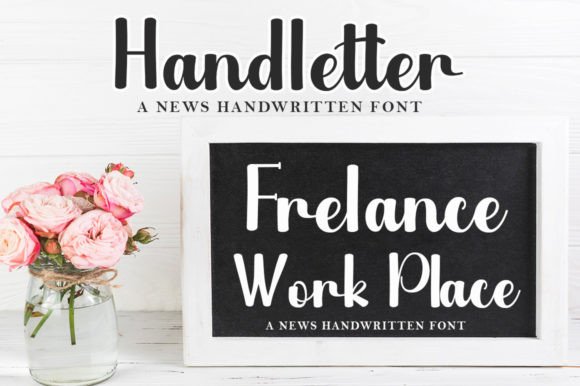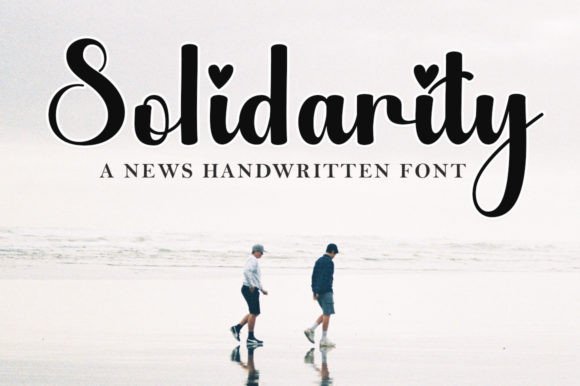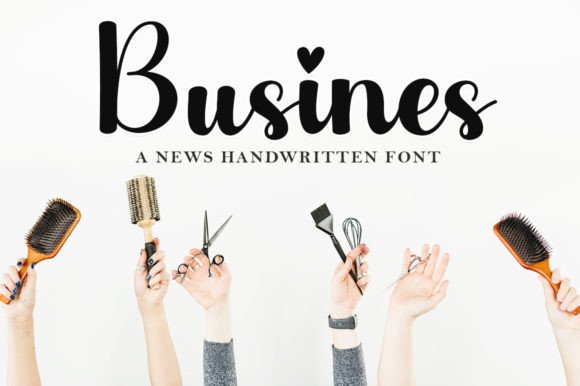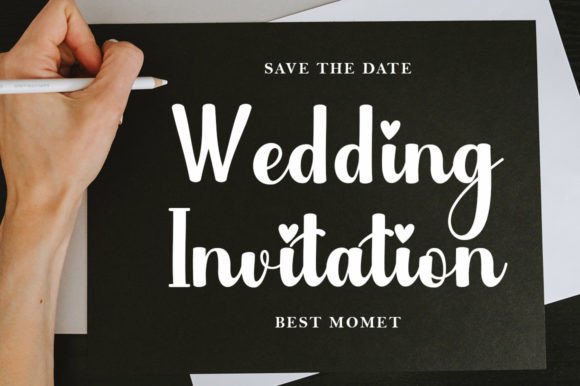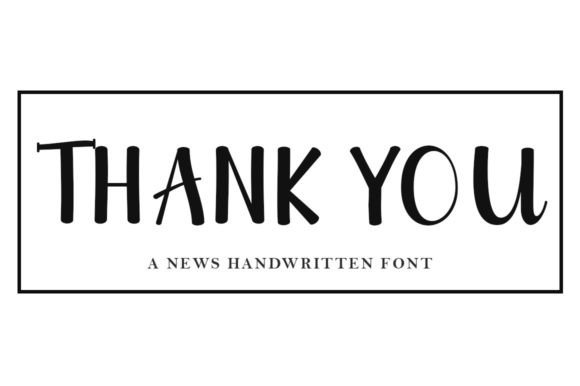
Elevate Your Designs with Hand Letter Font: A Timeless Classic with a Modern Twist
In the world of typography, few styles evoke the same level of sophistication and elegance as hand lettering. Among the numerous fonts that attempt to capture this essence, Hand Letter Font stands out as a shining example of modern calligraphy with a classic touch. This trendy handwritten font is designed to bring a contemporary atmosphere and impeccable form to your design projects, making it an ideal choice for designers and crafters looking to add a touch of refinement to their work.
The Inspiration Behind Hand Letter Font
Hand Letter Font draws inspiration from timeless classic calligraphy, infusing it with a modern sensibility that resonates with today’s design trends. The result is a font that exudes elegance and class, perfect for projects that demand a high level of sophistication. Whether you’re working on a luxury brand identity, a wedding invitation, or a high-end product packaging, Hand Letter Font is sure to make a lasting impression.
Key Features of Hand Letter Font
- Unique Letterforms: Each letter in Hand Letter Font is carefully crafted to showcase a distinctive, hand-crafted feel that sets it apart from more traditional fonts.
- Contemporary Atmosphere: The font’s modern twist ensures it remains relevant and fresh, making it suitable for a wide range of design applications.
- Impeccable Form: The attention to detail in Hand Letter Font ensures that every letter and character is meticulously designed to contribute to the overall aesthetic of your project.
- Elegance and Class: The font’s classic inspiration and modern execution combine to bring an unparalleled level of sophistication to your designs.
Applications of Hand Letter Font
The versatility of Hand Letter Font makes it an excellent choice for various design projects. Here are some of the ways you can utilize this beautiful font:
- Branding and Identity: Use Hand Letter Font to create a luxurious and memorable brand identity that stands out from the competition.
- Wedding and Event Stationery: Add a touch of elegance to your wedding invitations, save-the-date cards, and other event stationery with this beautiful font.
- Packaging Design: Elevate your product packaging with a sophisticated font that communicates luxury and quality.
- Digital and Print Media: Whether you’re designing for digital platforms or print, Hand Letter Font adapts seamlessly, ensuring your message is conveyed with style and class.
| Font Name | Hand Letter Font |
| Author | IM Studio |
Hand Letter Font is a stunning example of modern calligraphy that brings a touch of timeless elegance to your design projects. Its unique letterforms, contemporary atmosphere, and impeccable form make it an ideal choice for designers and crafters looking to elevate their work. By incorporating Hand Letter Font into your designs, you’re not just choosing a font; you’re adding a statement of sophistication and class that is sure to leave a lasting impression.
Whether you’re a seasoned designer or a crafty DIY enthusiast, Hand Letter Font is a valuable addition to your typographic arsenal. So, why settle for ordinary when you can create something extraordinary with Hand Letter Font?